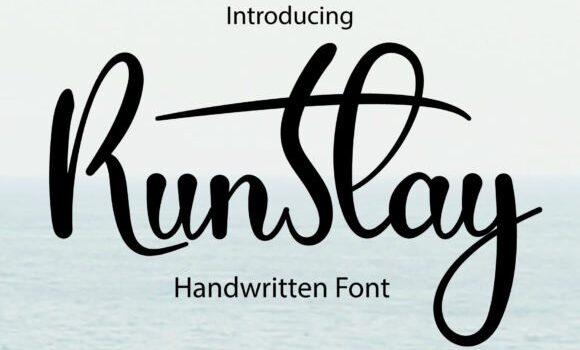
runstay
Runstay Font – Free Download Introduction to Runstay Font Runstay is a handwritten font with a contemporary atmosphere and impeccable form. 📸 Preview Gallery 6 images 📌 Product Name Runstay Font 👤 Author fahmistudio99 📂 Category Explore ⬇️ Download Runstay